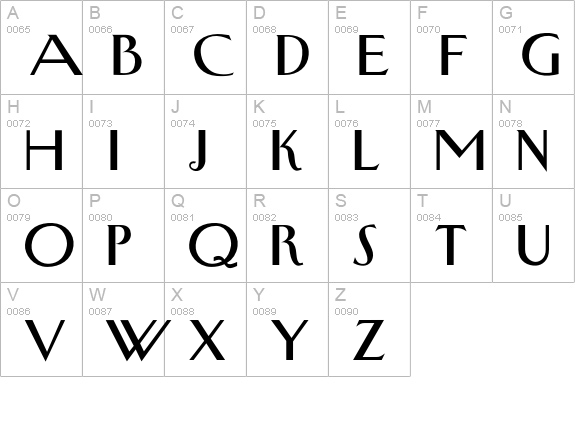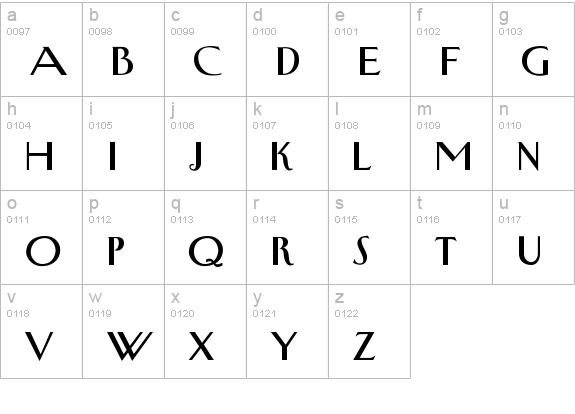
Newyorkertype font captures the essence of the bustling metropolis, with its sleek and modern design that exudes sophistication and style. This versatile typeface is perfect for a wide range of design projects, from elegant branding to eye-catching headlines. Its clean lines and contemporary look make it a must-have for designers looking to make a statement. And the best part? Newyorkertype font is completely free to download at FontsMarket.com. So, whether you're working on a personal project or a professional campaign, you can add this stunning font to your collection without breaking the bank. Don't miss out on the opportunity to elevate your designs with this chic and timeless typeface. Download Newyorkertype font today and let your creativity shine!